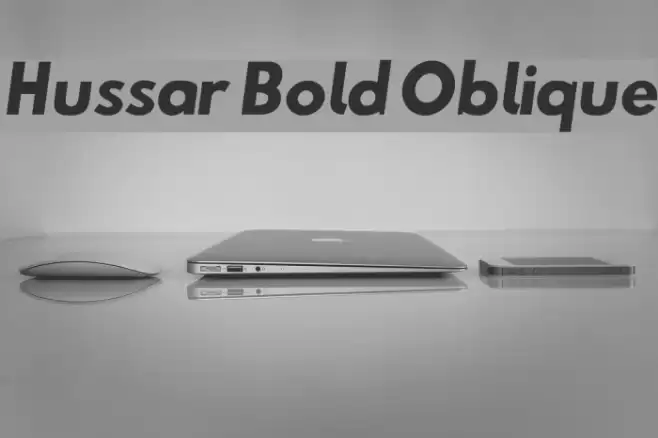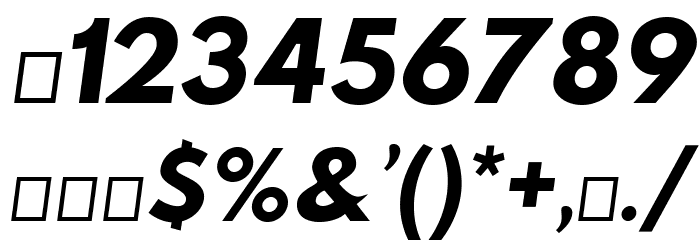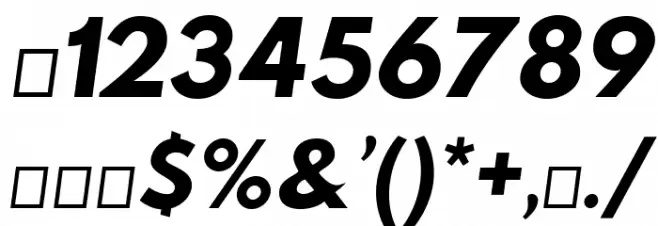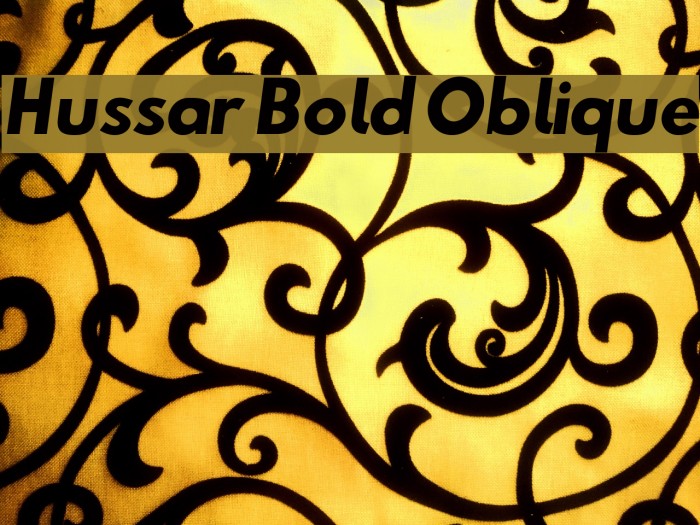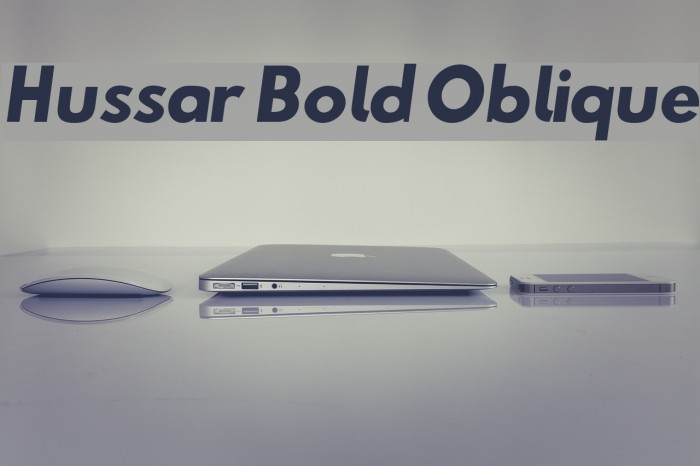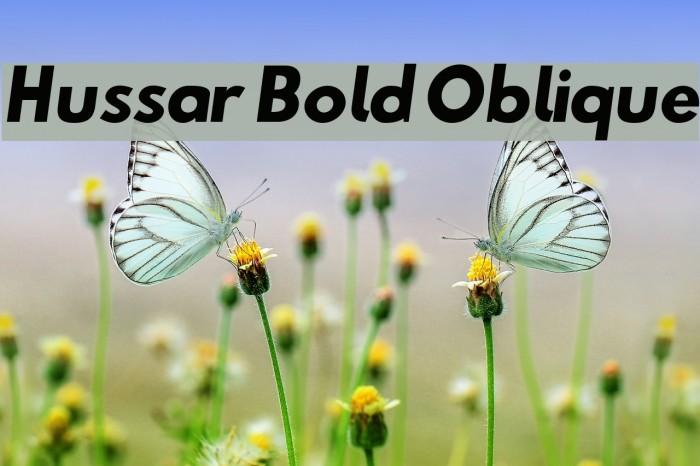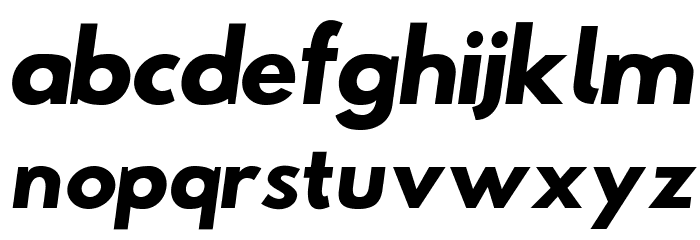
Hussar Bold Oblique Font
Hussar Bold Oblique Description
This font features a bold and oblique style, characterized by its strong, slanted appearance. The uppercase letters are robust and assertive, while the lowercase letters maintain a consistent slant, adding a dynamic feel. The numerals are equally bold, ensuring readability and impact. Special characters are designed with the same boldness, making them stand out. The overall design is modern and sleek, suitable for making a strong visual statement.
A bold, oblique font with a modern and dynamic style from Uncategorized fonts.